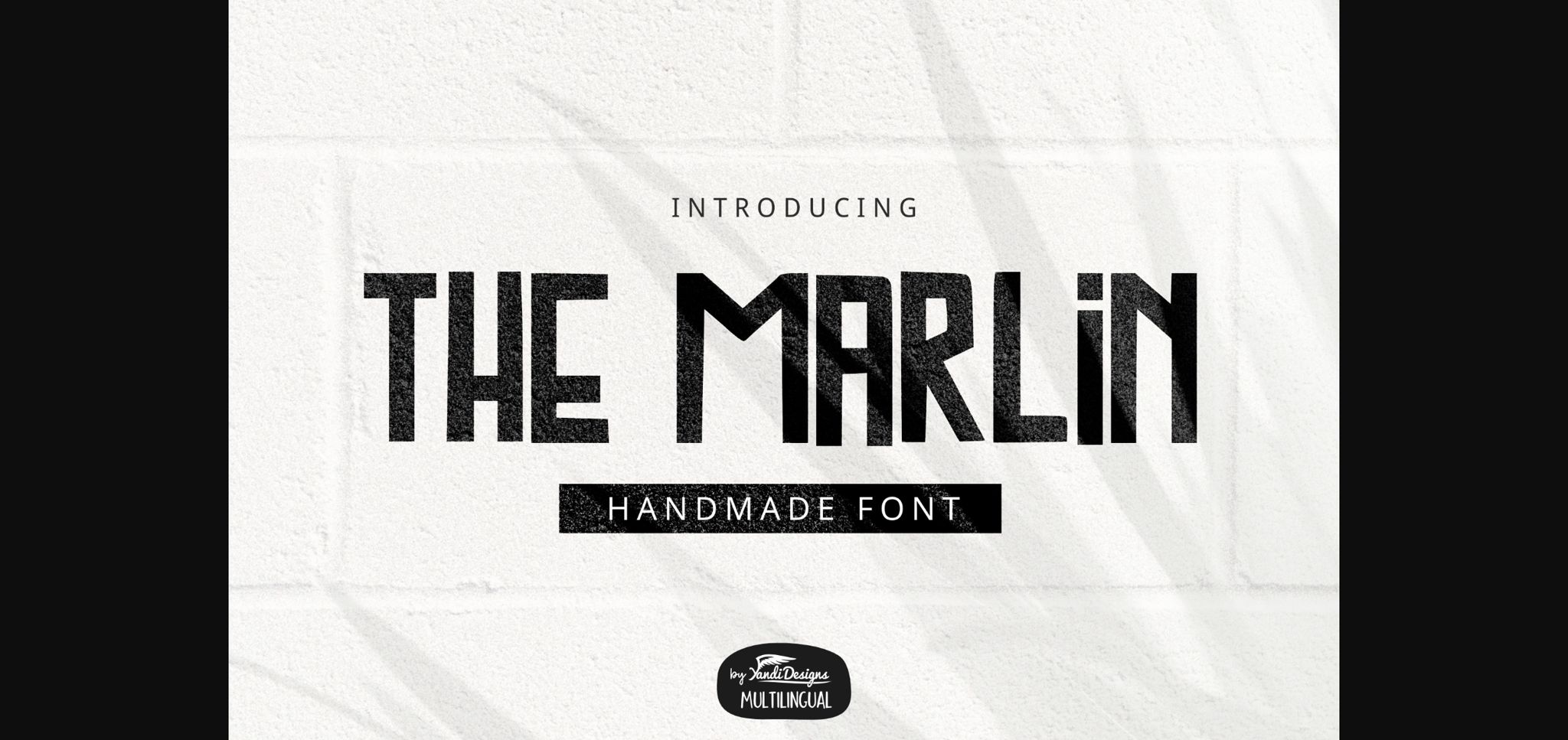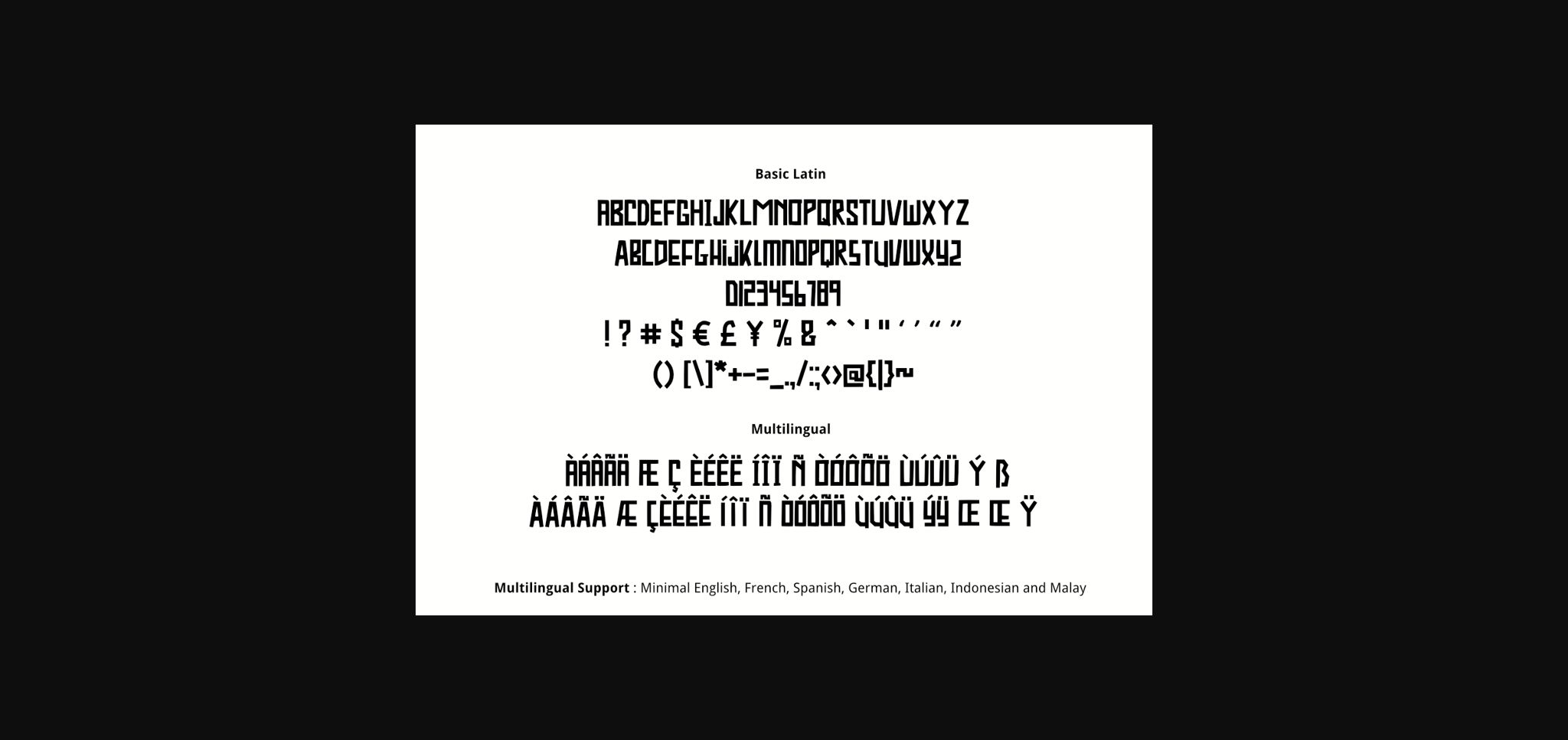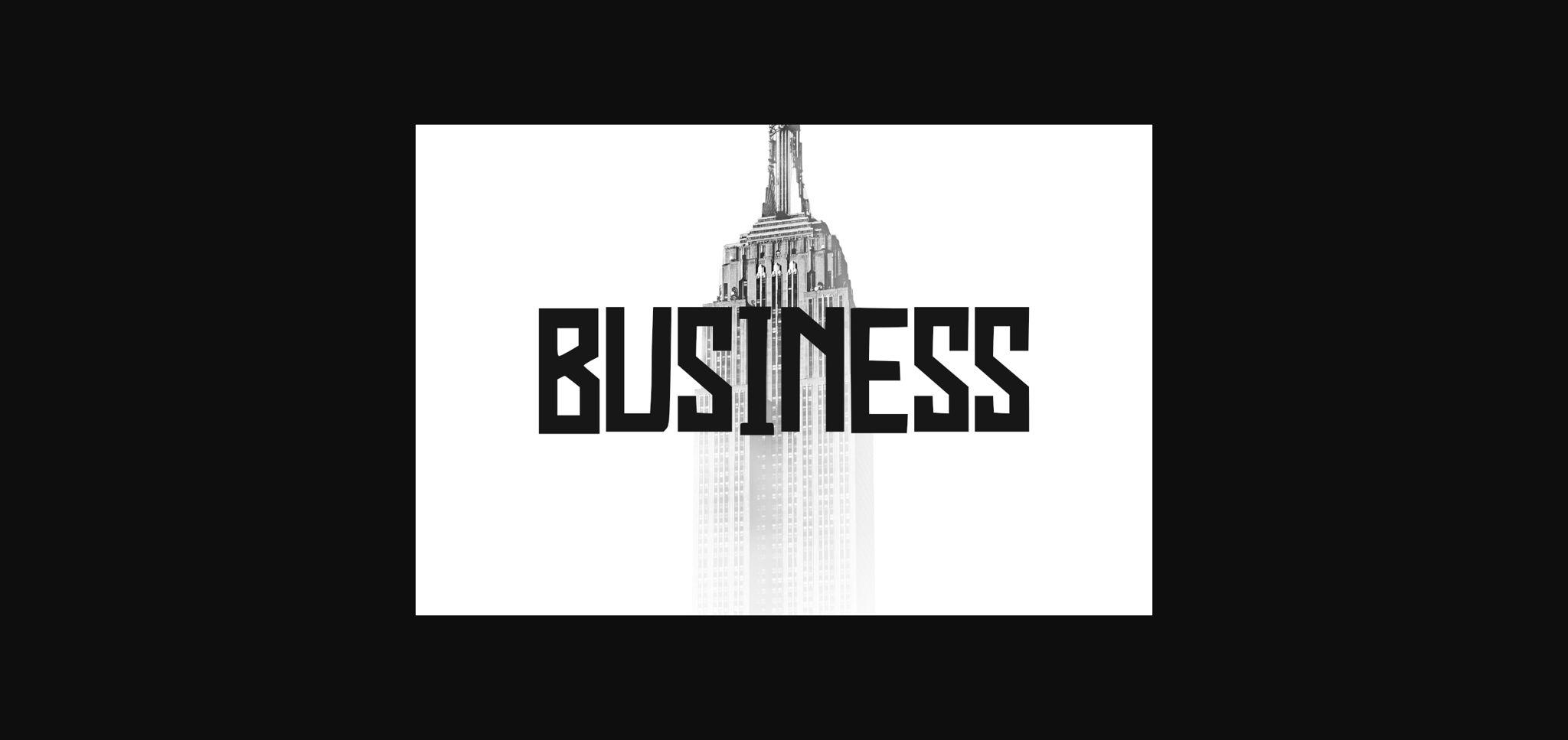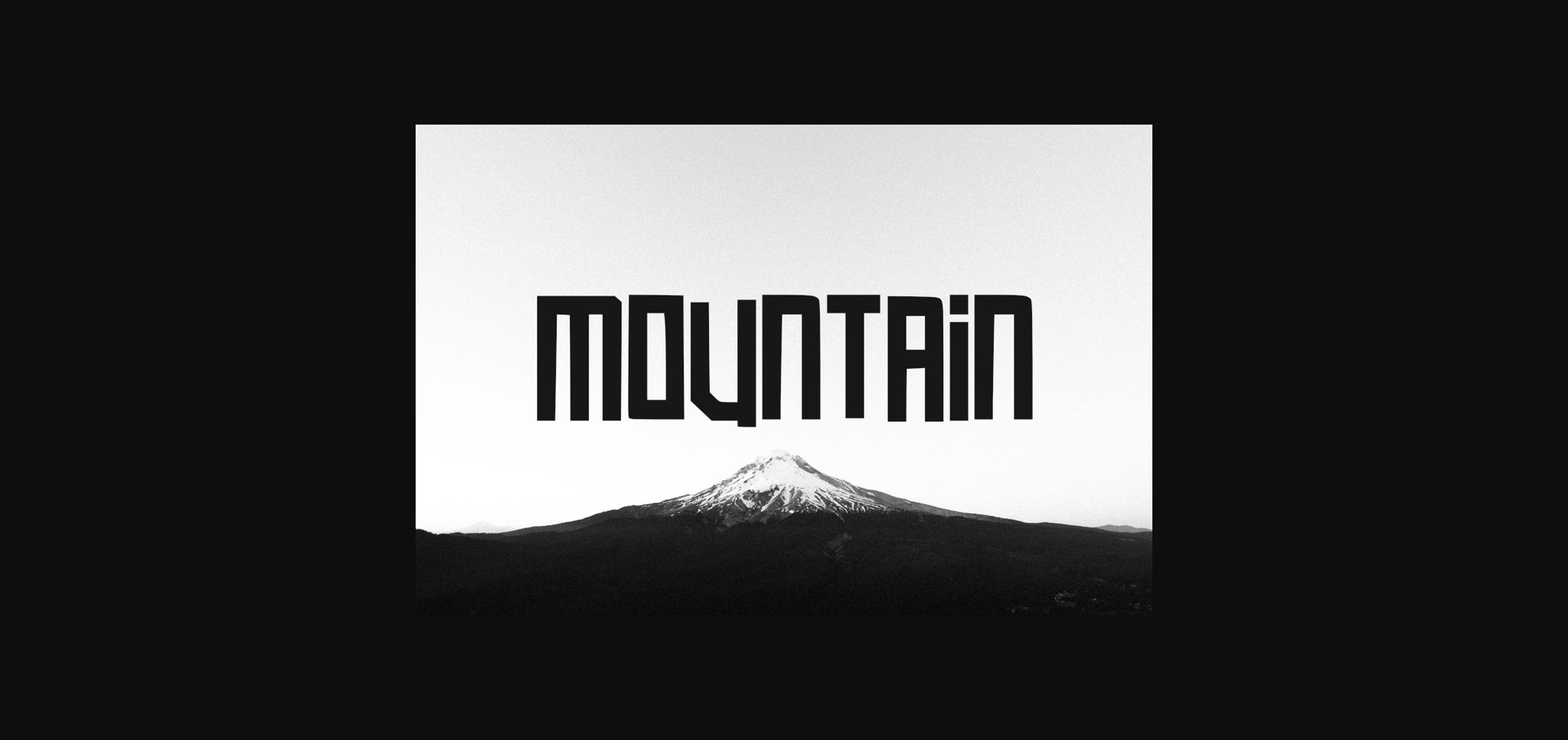
About The Marlin Font
The Marlin is a modern sans serif font. Fall in love with its completely different and timeless style and use it to create spectacular designs!